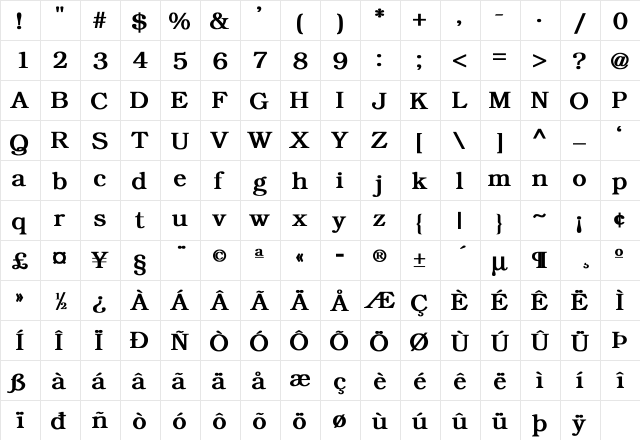
Oakland Bold
Design Context for Oakland Typeface
Oakland takes a measured approach to typography — its balanced proportions and neutral character make it a reliable workhorse for both digital and print work. The heavy weight commands attention and anchors typographic hierarchies.